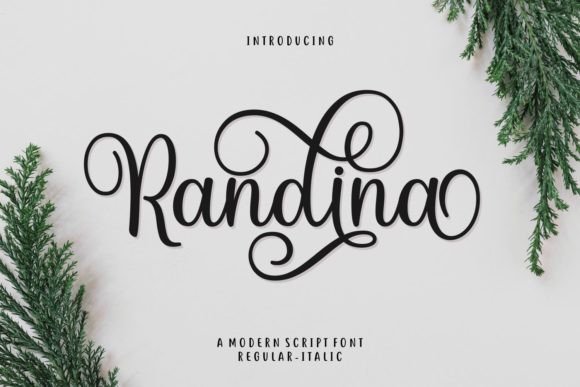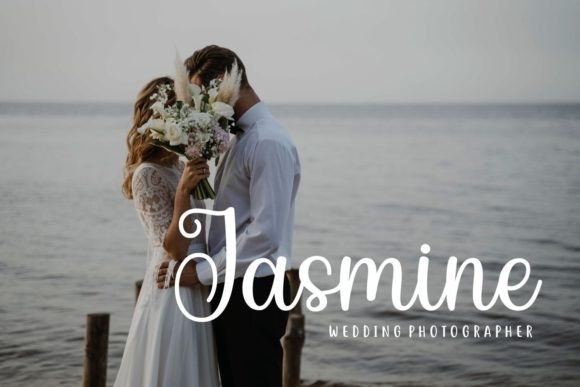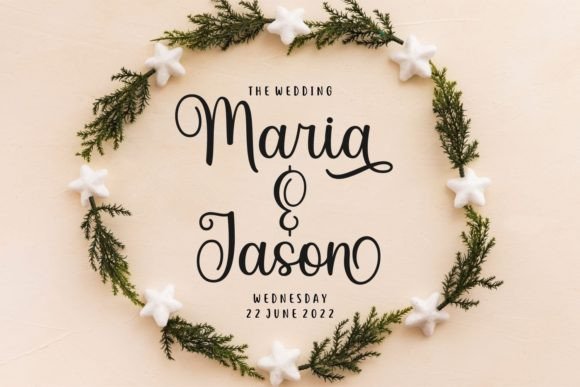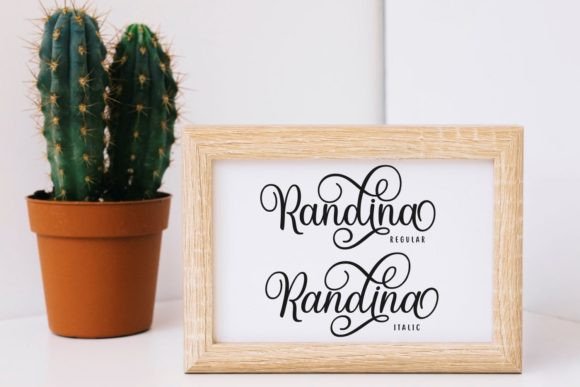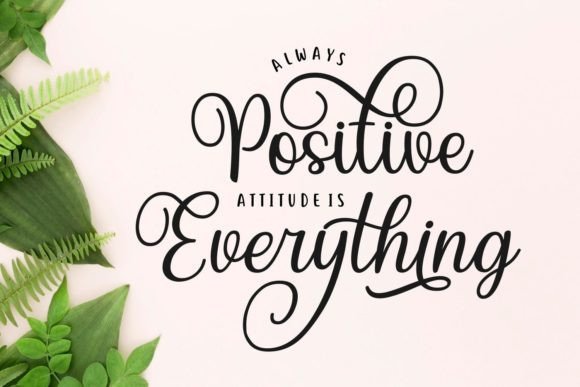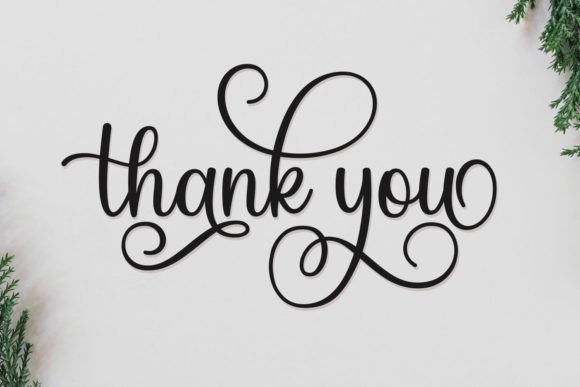
**Randina Font: Where Modern Style Meets Dramatic Elegance**
Introducing “Randina,” a modern and stylish script font that stands as a testament to grace and elegance in the world of design. With its dramatic swashes and beautiful rhythm, this font transforms your creative projects into visual masterpieces, capturing attention and adding a touch of sophistication.
At the heart of “Randina” is a modern style that effortlessly blends contemporary aesthetics with timeless elegance. Each letter is crafted with precision, creating a harmonious rhythm that resonates with grace. This font is not merely a typeface; it’s a design statement that elevates your creative endeavors to new heights.
The dramatic swashes of “Randina” become the focal point, adding an element of flair and opulence to your text. Picture it gracing the covers of fashion magazines, enhancing the elegance of wedding invitations, or becoming the signature font for upscale branding. This font becomes the key to unlocking a realm of visual sophistication.
The beauty of “Randina” lies not only in its stylish appearance but also in its versatility. PUA encoding ensures that you can access all glyphs and swashes with ease, allowing you to customize and unleash the full potential of this script font. Every added flourish becomes a brushstroke in the canvas of your creativity.
The application of “Randina” extends beyond traditional mediums to the digital landscape. Whether you’re designing for websites, social media, or digital invitations, this font becomes the secret ingredient that infuses a sense of luxury and elegance into your online presence.
In conclusion, “Randina” is more than just a font; it’s a design companion that marries modern style with dramatic elegance. Embrace it, and watch as your creative projects become a symphony of sophistication. With “Randina,” every letter becomes a work of art, leaving an indelible mark of grace and style on your design journey.